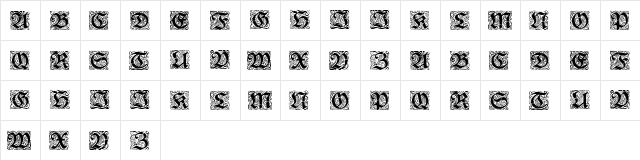
Rediviva Zierbuchstaben Regular
| Designer | Dieter Steffmann |
Design Context for Rediviva Zierbuchstaben Typeface
Rediviva Zierbuchstaben is a composed and adaptable typeface that performs quietly and consistently across a wide range of design contexts.